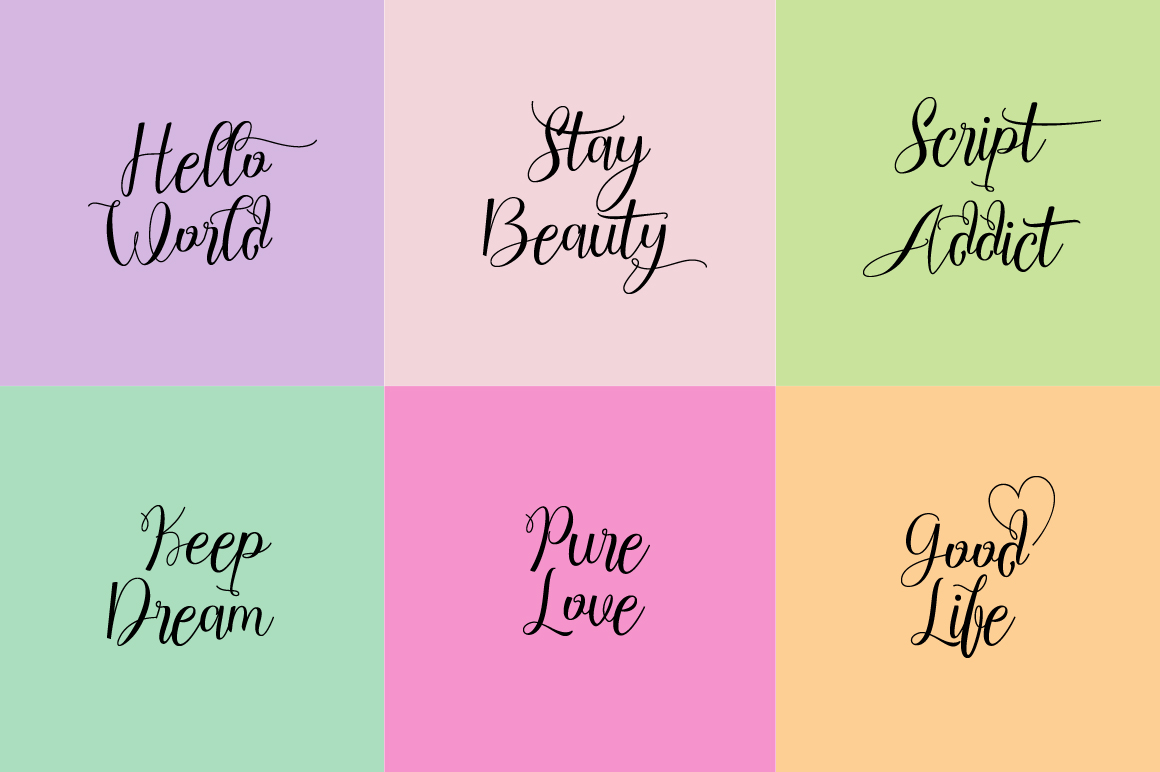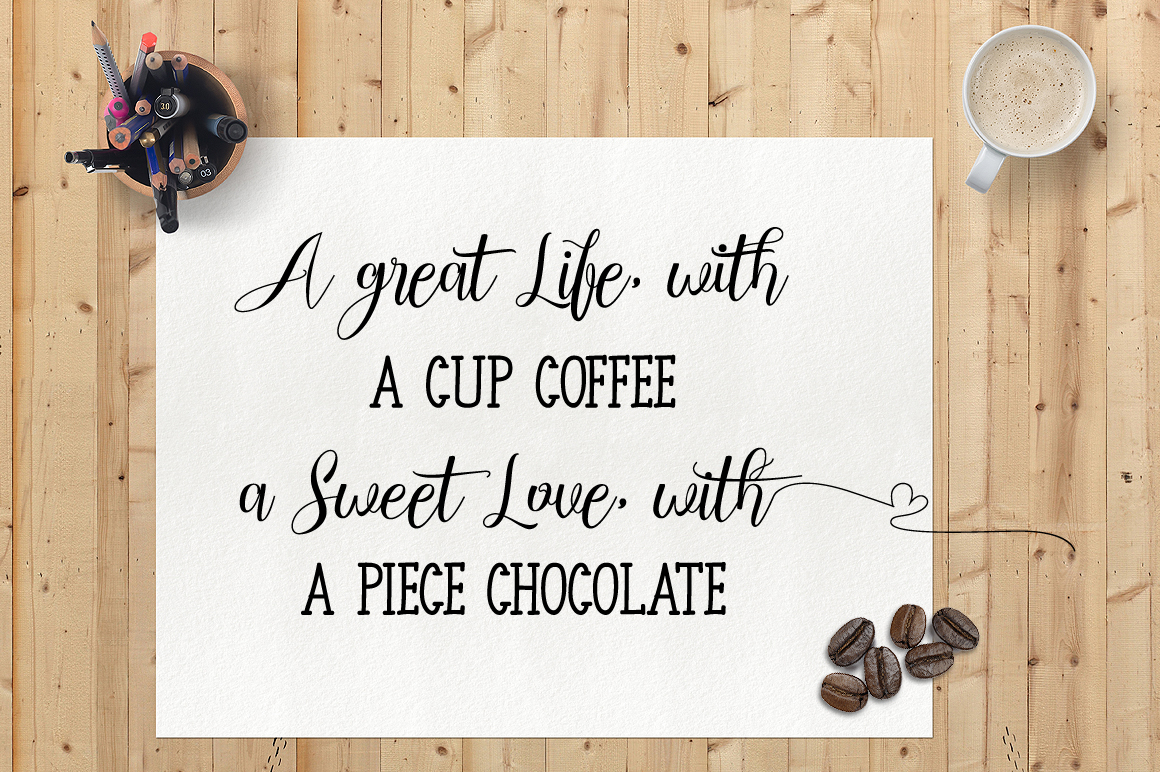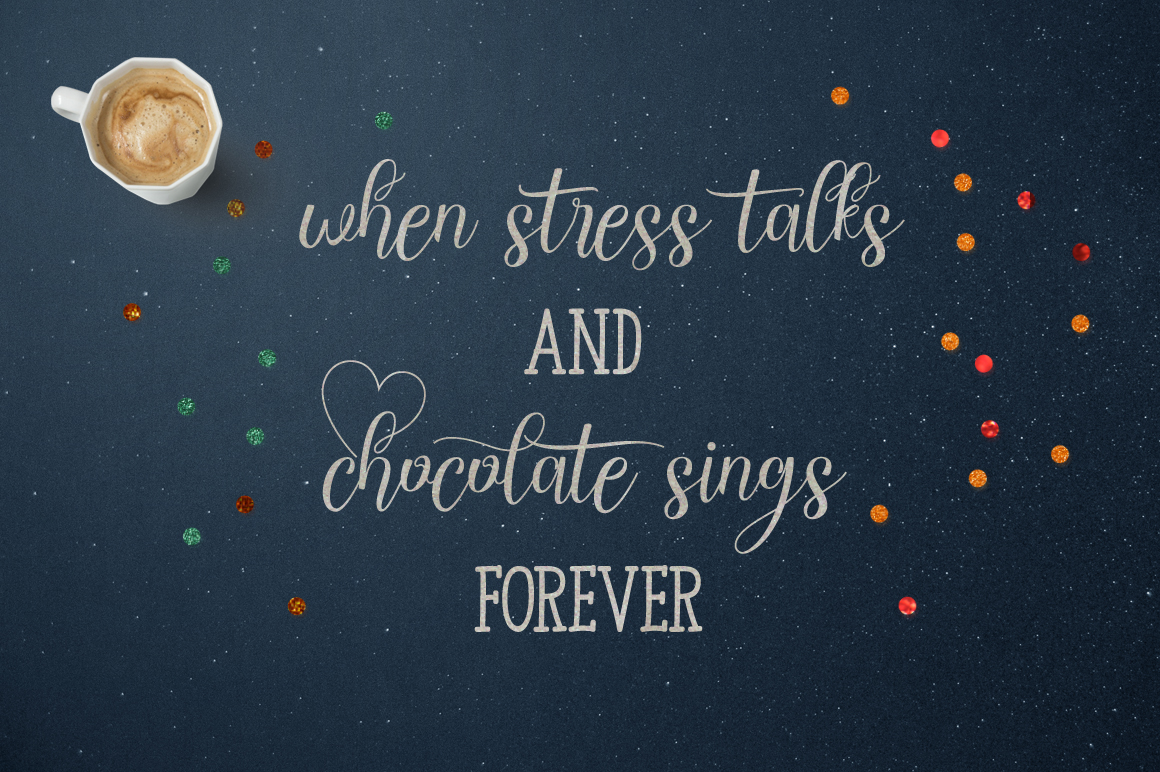
Introduction to Chocolate Milky Font
Chocolate Milky is a beautiful handwritten font with tons of alternates and beautiful swashes that give it a romantic and entrancing appeal.
This font is ideal for headlines and title text, and can give all your print and digital designs an unparalleled loveliness .
Key Features of Chocolate Milky Font
Why Choose Chocolate Milky Font?
Chocolate Milky Font offers exceptional quality and versatility, making it a valuable addition to your design toolkit. Whether you’re creating for personal projects or commercial use, Chocolate Milky Font delivers professional results.